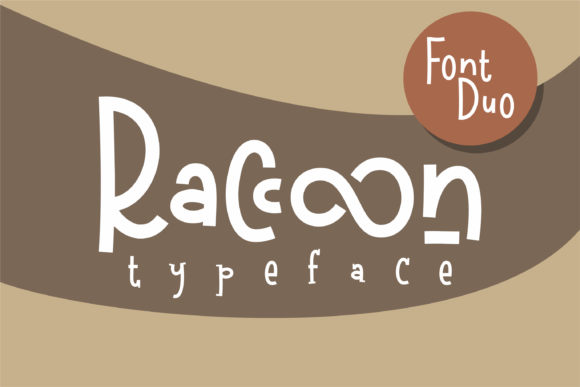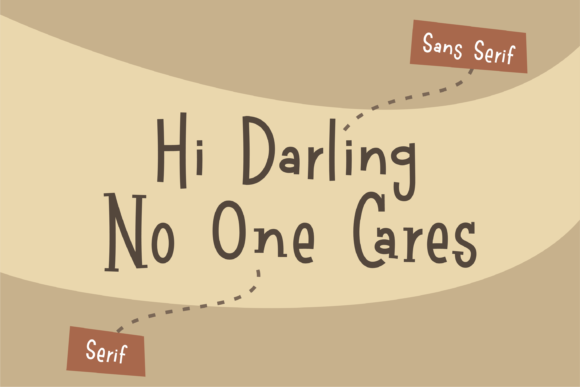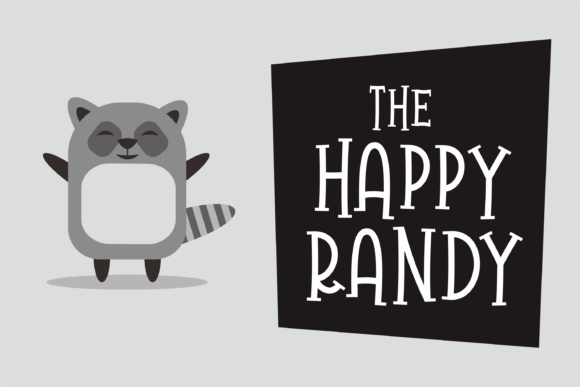
Raccoon Font
Raccoon is a simple and cute display font. It is perfect for projects like quotes, greeting cards, invitation cards, children books, social media and others